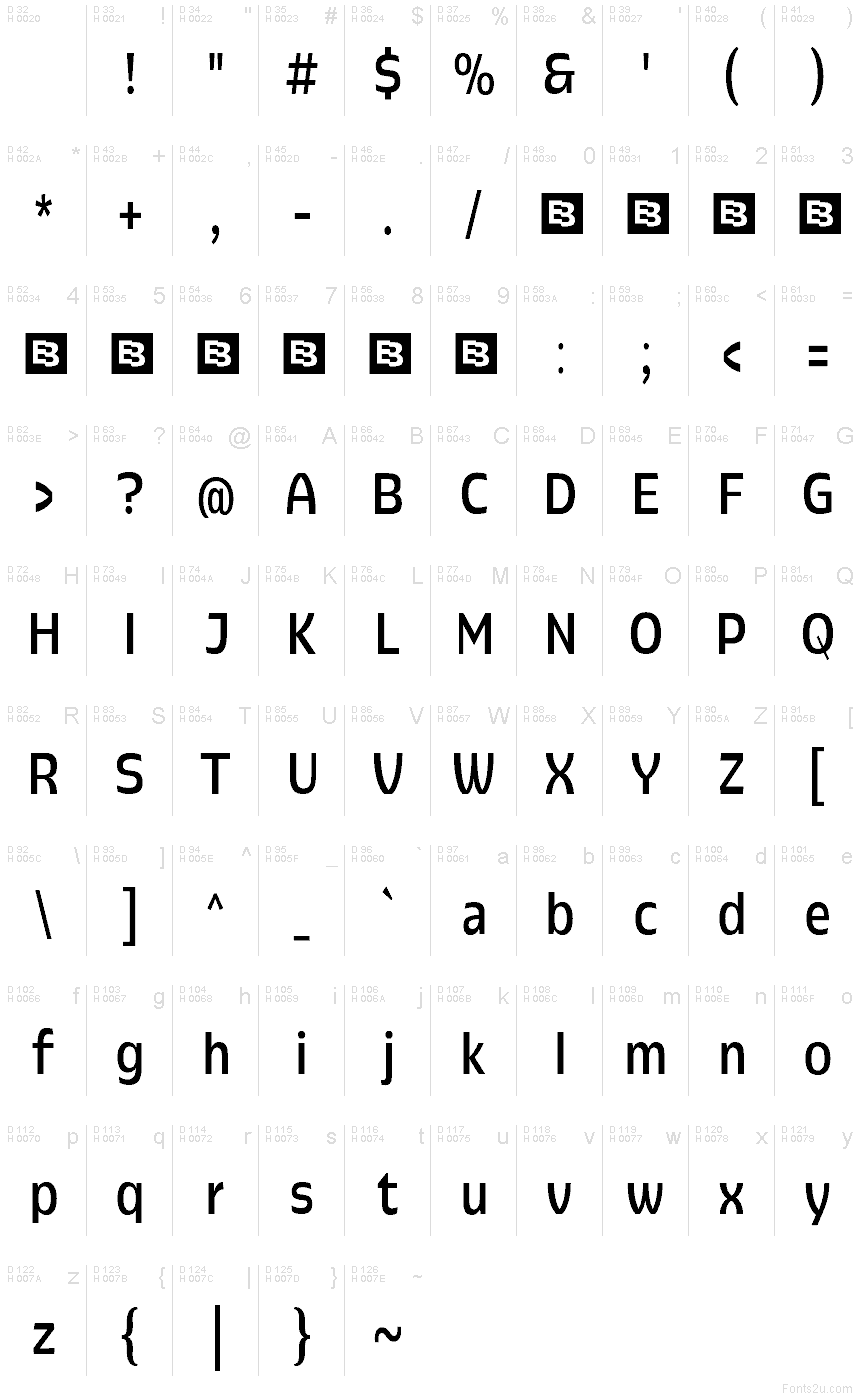
Pocas Trial Medium Condensed
Pocas Medium Condensed font by Eko Bimantara is a free condensed sans serif typeface. Its tight width and generous x-height squeeze more words into narrow spaces without feeling cramped, thanks to sturdy strokes, open counters, and softly rounded joins that read clean at a glance. The Pocas family’s steady rhythm keeps headlines punchy and labels legible, even when copy runs long.
Using Pocas Medium Condensed solves space‑pressure layouts—think mobile headers, product packaging, social posts, event flyers, editorial decks, and banner graphics. This free font holds shape at large sizes yet stays clear at medium weights, so you can push hierarchy without shouting. Pair it with Pocas Regular from the Pocas family for body text, and add a hair of tracking when setting it small.